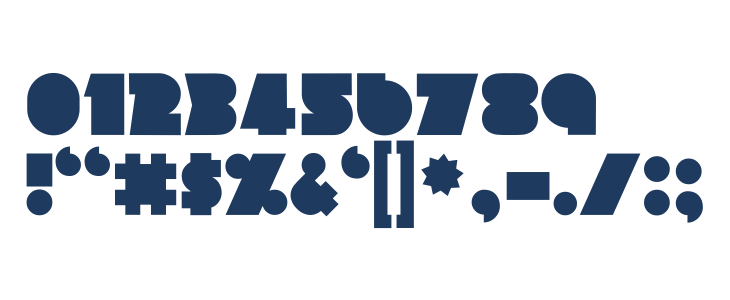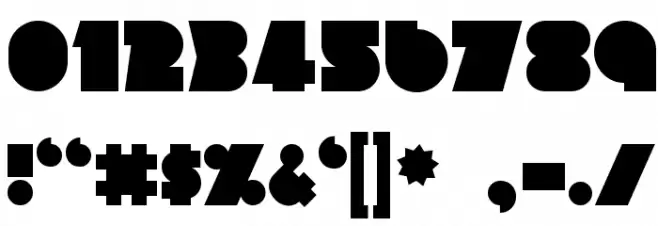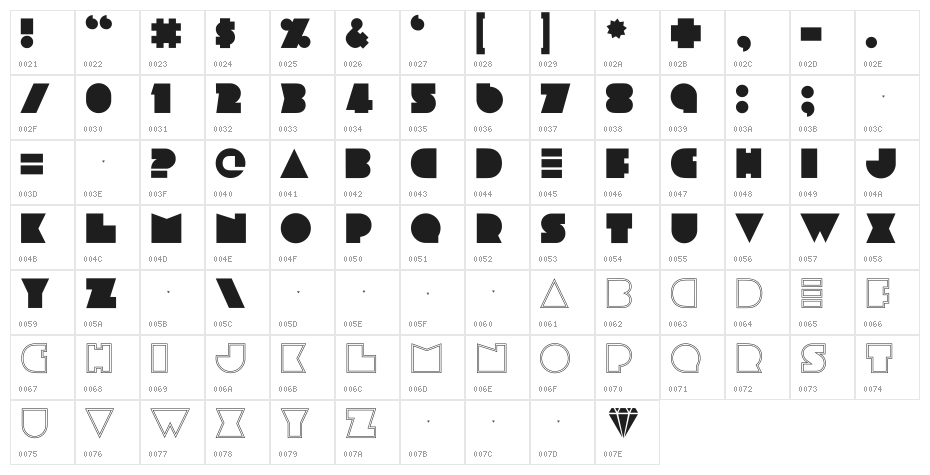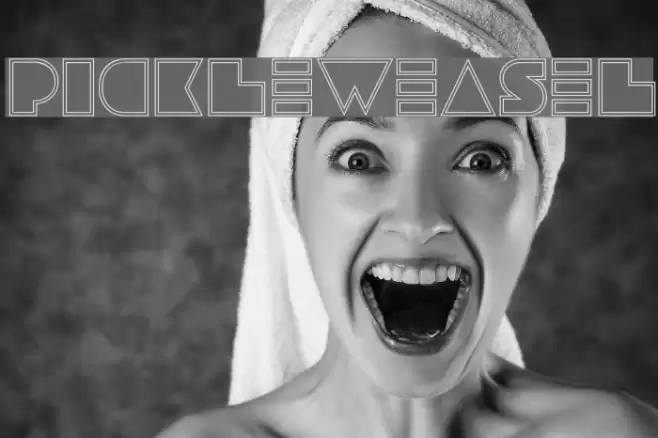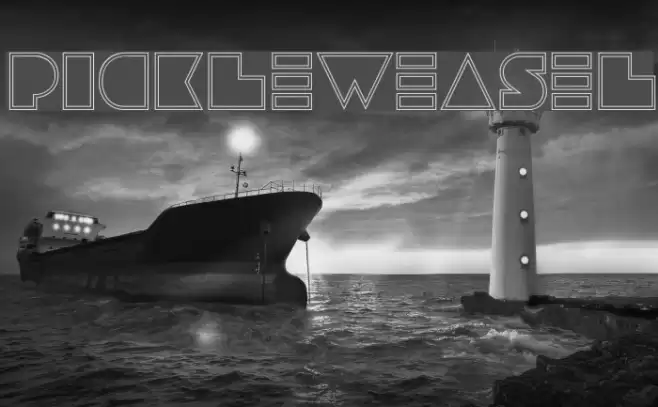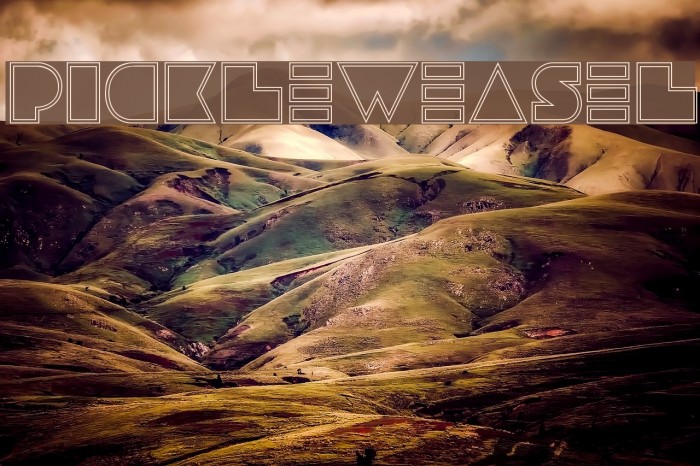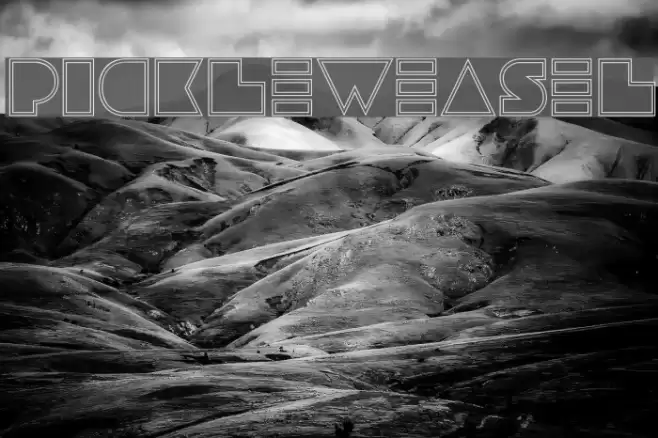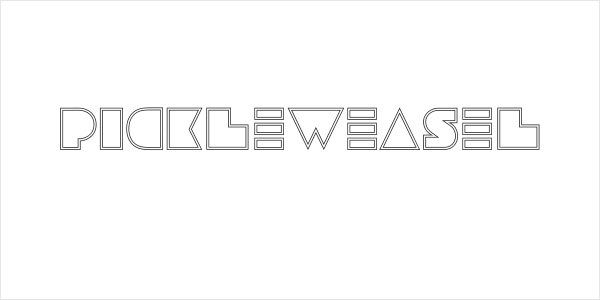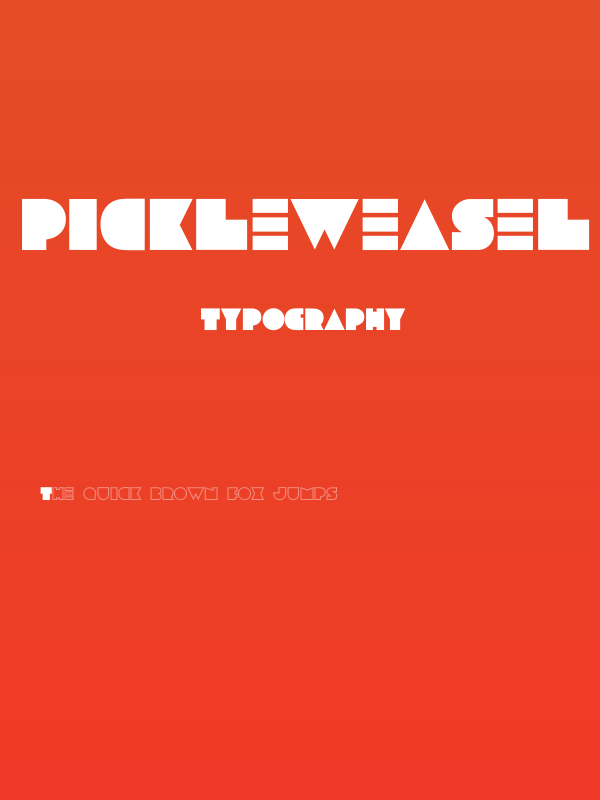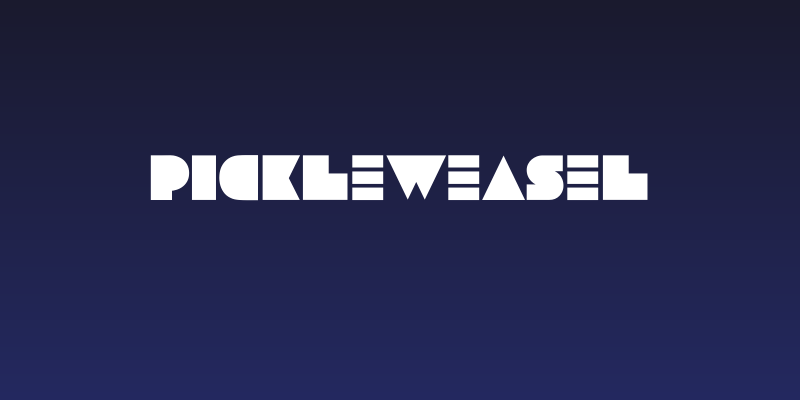
pickleweasel Font
pickleweasel Description
This font features a bold and geometric design, characterized by its solid, block-like shapes and sharp angles. The uppercase letters are particularly striking, with a strong presence and a modern aesthetic. The font includes both filled and outlined versions, offering versatility in design applications. The numbers and special characters maintain the same bold style, ensuring consistency across all elements. This font is ideal for projects that require a strong visual impact and a contemporary feel.